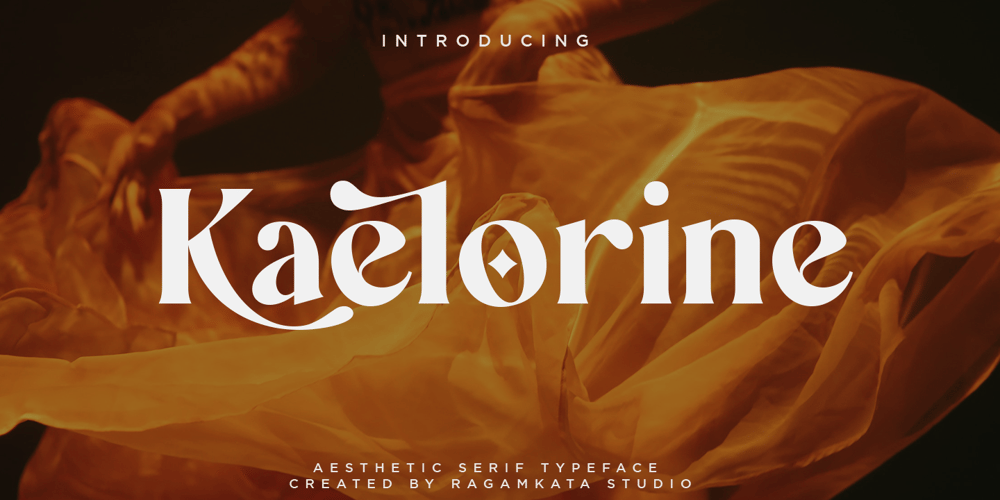
Kaelorin Font Family was designed by Yogiswhara Dio Prakoso Riadi and published by RagamKata. Kaelorin contains 2 styles and family package options. Say hello to new serif font, Kaelorin!Introducing Rosalind, a stunning modern retro serif font that effortlessly combines aesthetic charm with captivating alternate characters. This typeface falls into the category of modern retro serif fonts and is designed to bring a touch of nostalgia and elegance to your design projects.What sets Rosalind apart are its intriguing alternate characters. These alternates offer a wealth of creative possibilities, allowing you to experiment with various letter combinations and create unique and eye-catching typographic compositions. Each alternate has been thoughtfully designed to ensure visual coherence and seamless integration within the font.